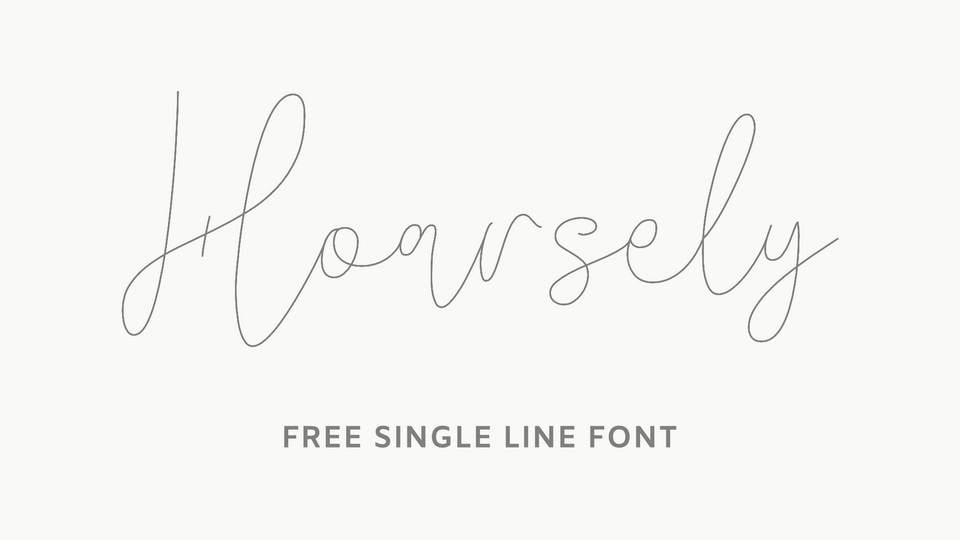
Download Hoasely font, a charming single line typeface that will make your work stand out through its elegant and simple lines. Hoasely font is perfect for branding project, magazine covers, social media, wedding, or just used to express words above the background.